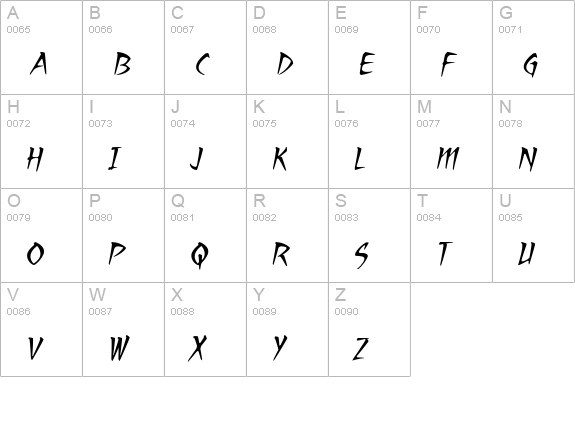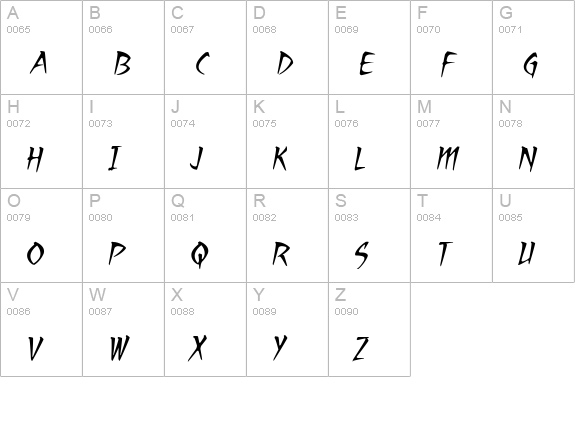
RagingRedLotus BB Italic is a distinctive, italic variant in the RagingRedLotus typeface family \xE2\x80\x94 well suited to design and typography projects.
RagingRedLotus BB Italic font is a striking and dynamic typeface that exudes energy and passion. Its bold and slanted design adds a sense of urgency and intensity to any project it is used in. Perfect for making a bold statement or adding a touch of drama to your designs, this font is sure to grab attention and leave a lasting impression. And the best part? RagingRedLotus BB Italic font is completely free to download at FontsMarket.com! Simply visit the website and add this powerful font to your collection without having to spend a dime. Embrace the fiery spirit of RagingRedLotus BB Italic font and set your designs ablaze with its bold and captivating style.